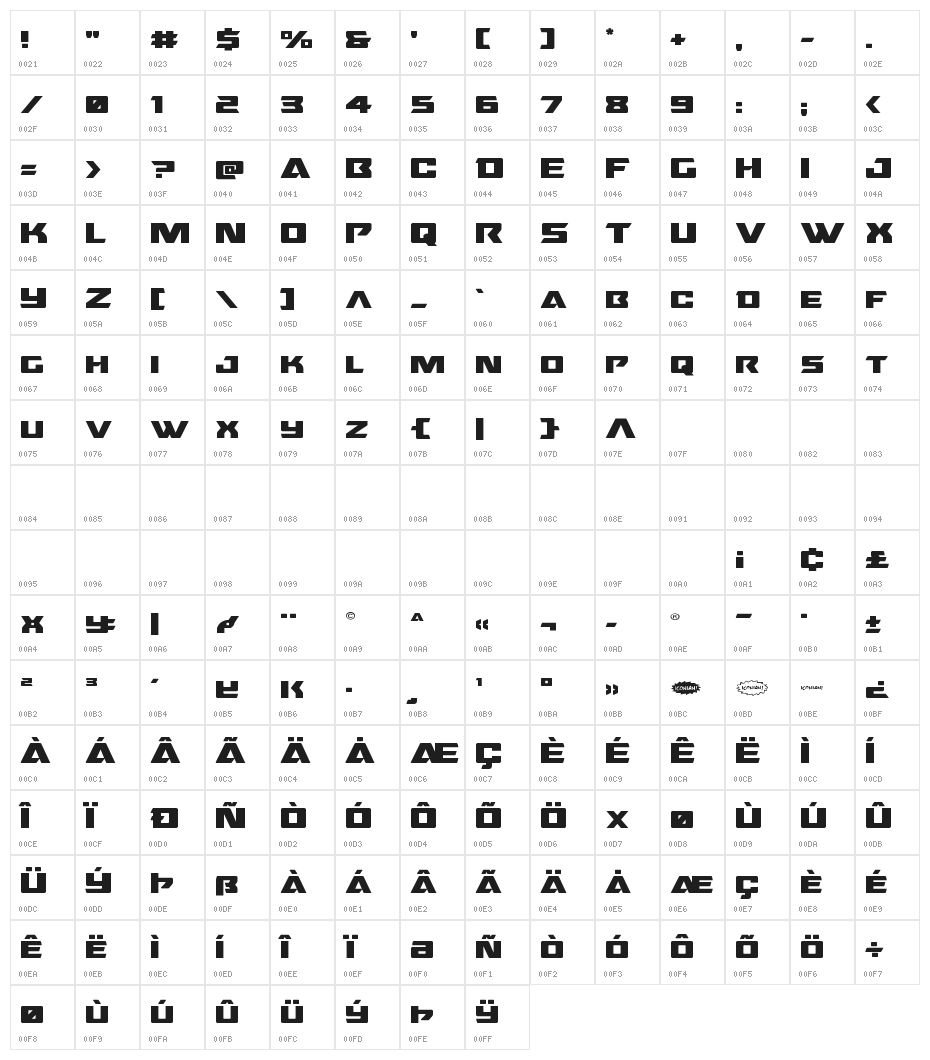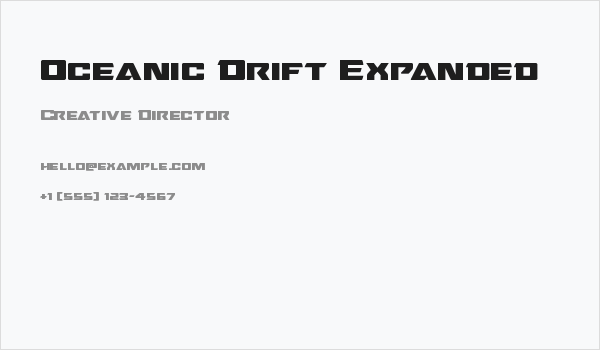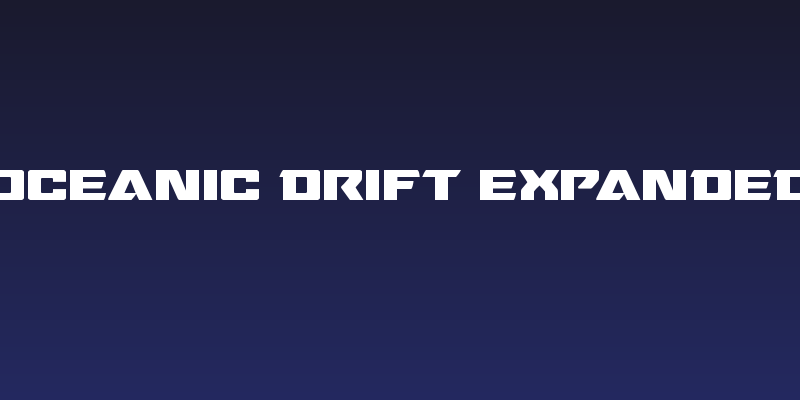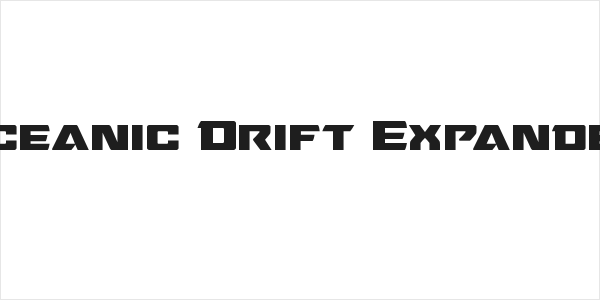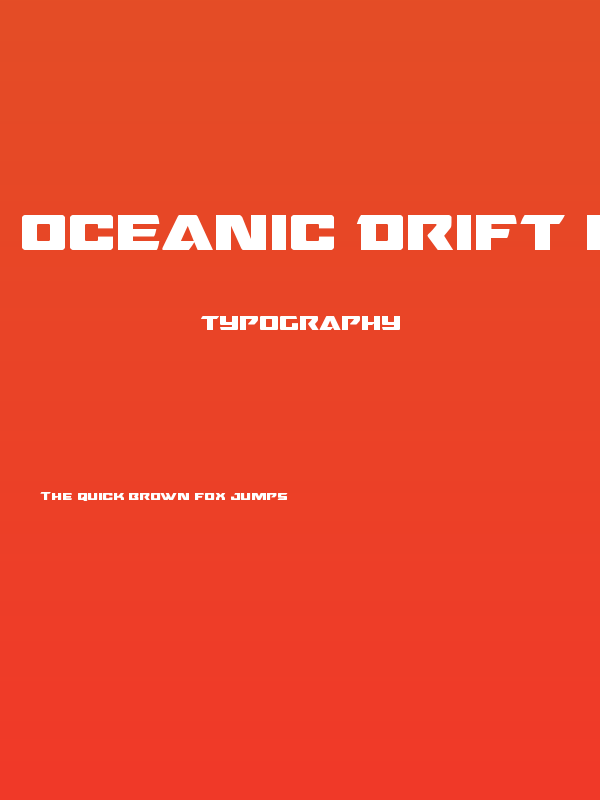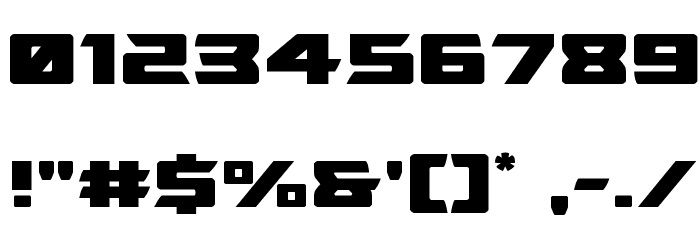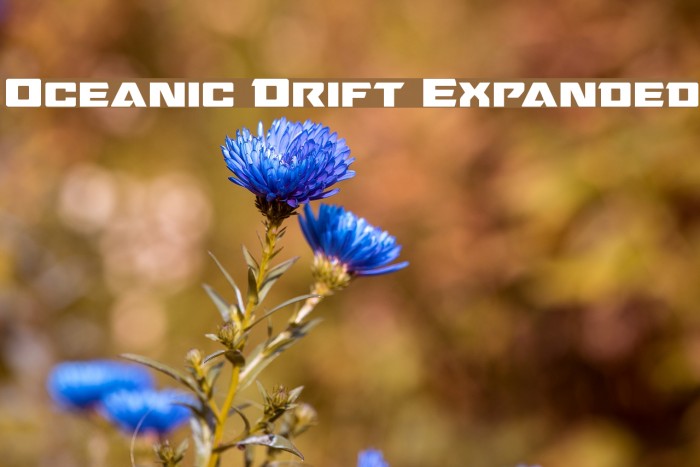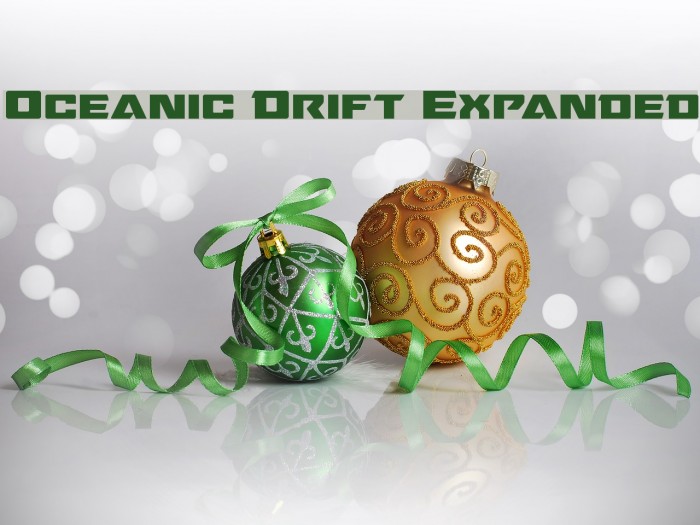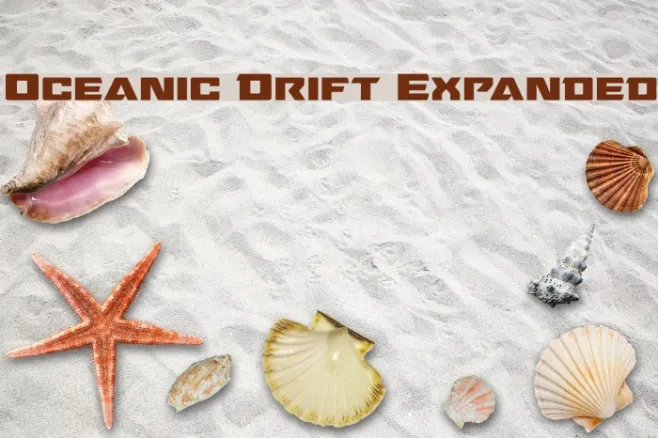
Oceanic Drift Expanded Font
Oceanic Drift Expanded Description
This font features a bold and geometric design with a futuristic flair. The characters are wide and blocky, with sharp angles and clean lines that create a strong visual impact. The uppercase letters are particularly striking, with a uniform height and consistent stroke width that enhances readability. The numerals and special characters maintain the same boldness and geometric style, ensuring a cohesive look across all text elements. This font is ideal for projects that require a modern and assertive aesthetic, such as technology branding, sports team logos, or sci-fi themed designs.
| Use Case | Logos, Headlines |
| Proposed Projects | Ideal for technology branding, sports team logos, sci-fi themed designs, and modern advertising. |